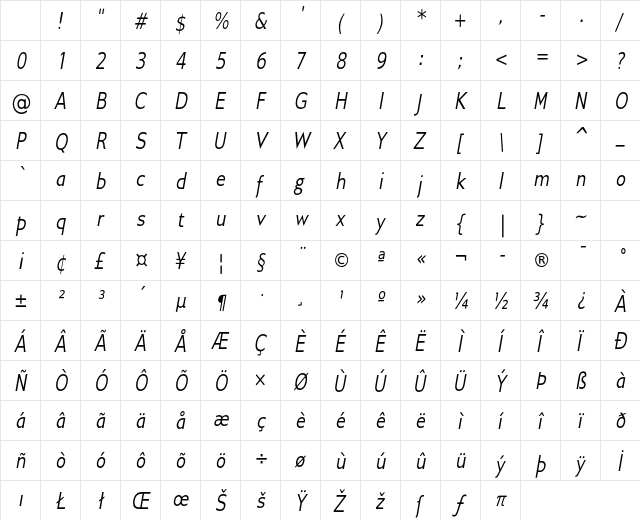
Gillius ADF Cond is a composed and adaptable typeface that performs quietly and consistently across a wide range of design contexts. The slanted form adds forward momentum and visual energy. Its narrow stance lets it pack a punch even in space-constrained designs.
Pro Tip: Use Gillius ADF Cond for emphasis, pull quotes, and subheadings where its slanted energy can add rhythm to the layout.